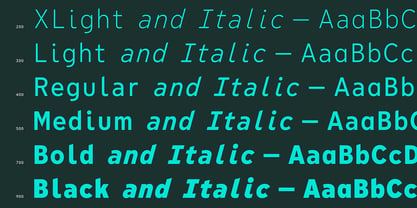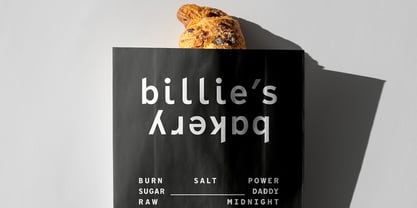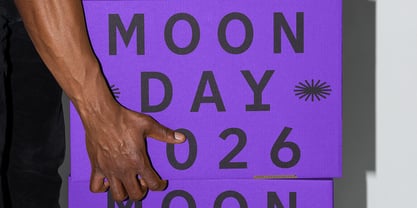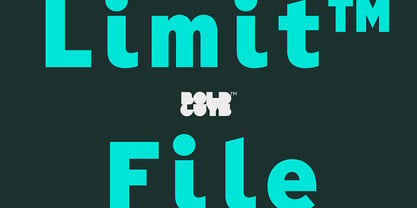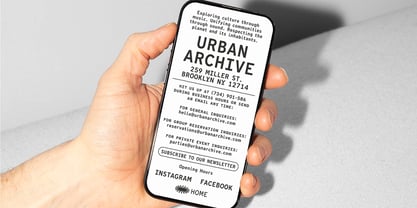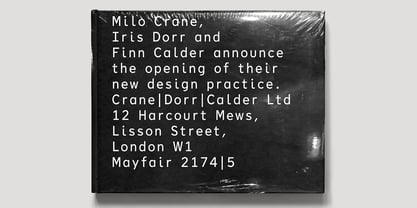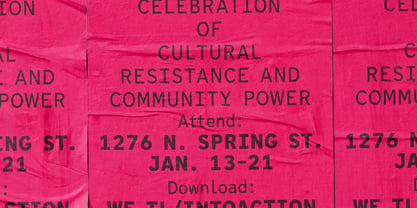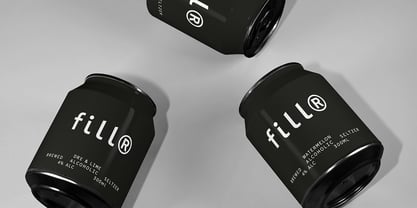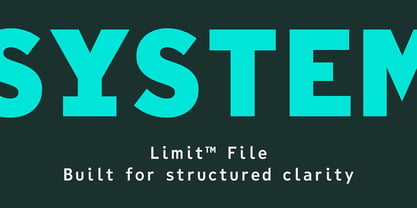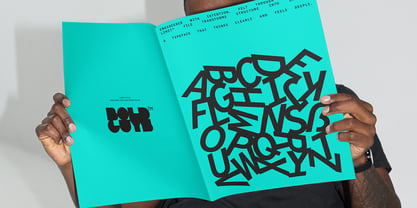
Limit File
Die Schriftfamilie Limit File wurde von Jörg Hemker entworfen und von Bold Guys™ veröffentlicht. Limit File enthält 12 Stile und Familienpaketoptionen. Mehr über diese Familie
Limit™ File is a modern system grotesk defined by controlled contrast and structured rhythm. Its carefully stepped weights establish clear hierarchy and stable tone, while the semi-monospaced character ensures a distinctive word image. Built for clarity and economy, Limit™ File delivers disciplined precision across branding, editorial, and digital systems.